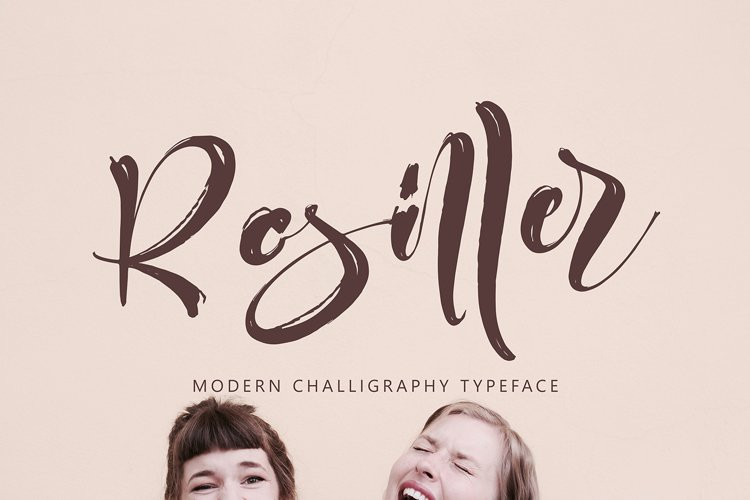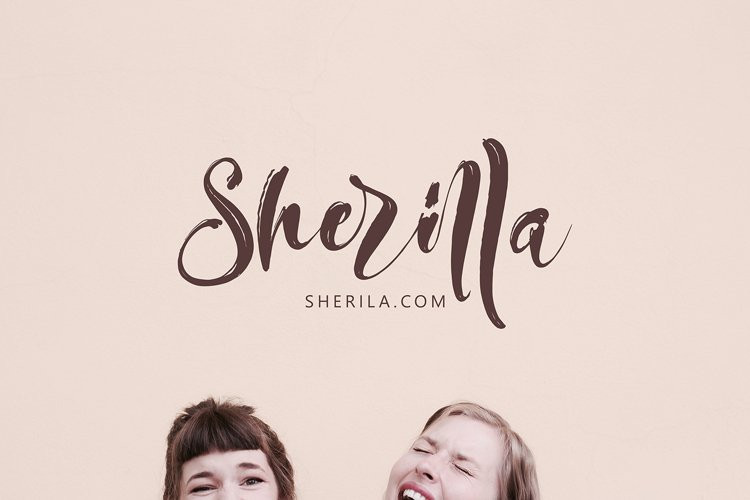
Rosiller Font
Rosiller font with new style, this font will perfect for many different project ex: quotes, logo, blog header, poster, banding, letter, invitation, stationery, etc…